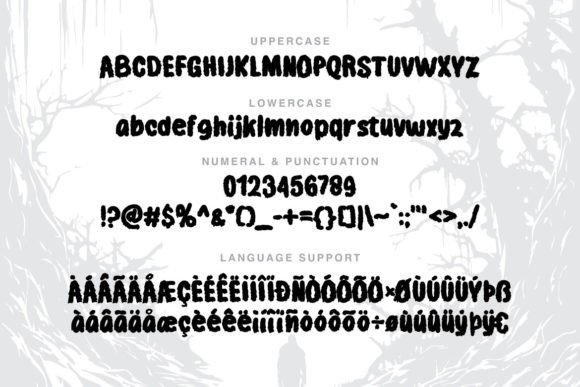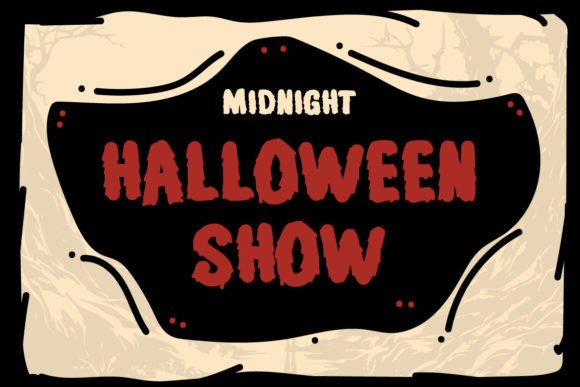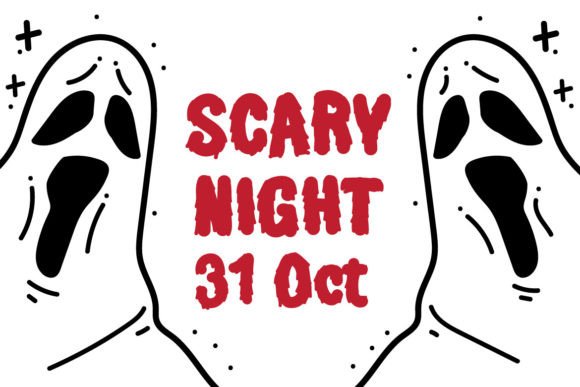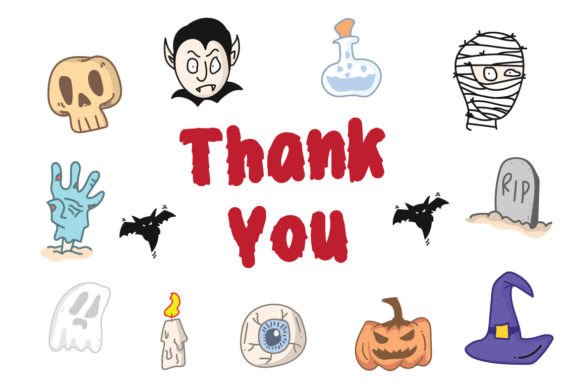
Elevate Your Halloween Designs with Ghoss Font: The Ultimate Typographic Treat
As the spookiest season approaches, designers and crafters are on the lookout for the perfect typography to add a dash of eerie elegance to their Halloween projects. Look no further than Ghoss Font, a hauntingly stylish font file that captures the essence of the season with its unique blend of gothic aesthetics and playful charm.
What is Ghoss Font?
Ghoss Font is a carefully crafted font product designed specifically for Halloween enthusiasts and designers who want to make a ghoulish statement with their typography. This font file is your key to unlocking a world of creative possibilities, from bewitching party flyers to creepy social media posts.
The Perfect Blend of Gothic Aesthetics and Playful Charm
Ghoss Font boasts a distinctive blend of gothic aesthetics and playful charm, making it the perfect choice for Halloween invitations, posters, and any design that needs a dash of the macabre. Its carefully crafted letters and eerie embellishments are sure to send shivers down spines and leave a lasting impression on your audience.
Why Choose Ghoss Font?
So, why choose Ghoss Font over other typography options? Here are just a few reasons why Ghoss Font stands out from the rest:
- Unique blend of gothic aesthetics and playful charm: Ghoss Font offers a distinctive style that is sure to make your designs stand out from the crowd.
- Carefully crafted letters and eerie embellishments: Every letter and embellishment has been carefully crafted to create a truly hauntingly stylish effect.
- Perfect for designers and Halloween enthusiasts: Whether you’re a professional designer or a Halloween enthusiast, Ghoss Font is the perfect choice for anyone looking to add a touch of eerie elegance to their designs.
In conclusion, Ghoss Font is a must-have for designers, Halloween enthusiasts, and anyone looking to make a ghoulish statement with their typography. With its unique blend of gothic aesthetics and playful charm, carefully crafted letters and eerie embellishments, and endless creative possibilities, Ghoss Font is the perfect choice for anyone looking to elevate their Halloween designs to hauntingly stylish heights.